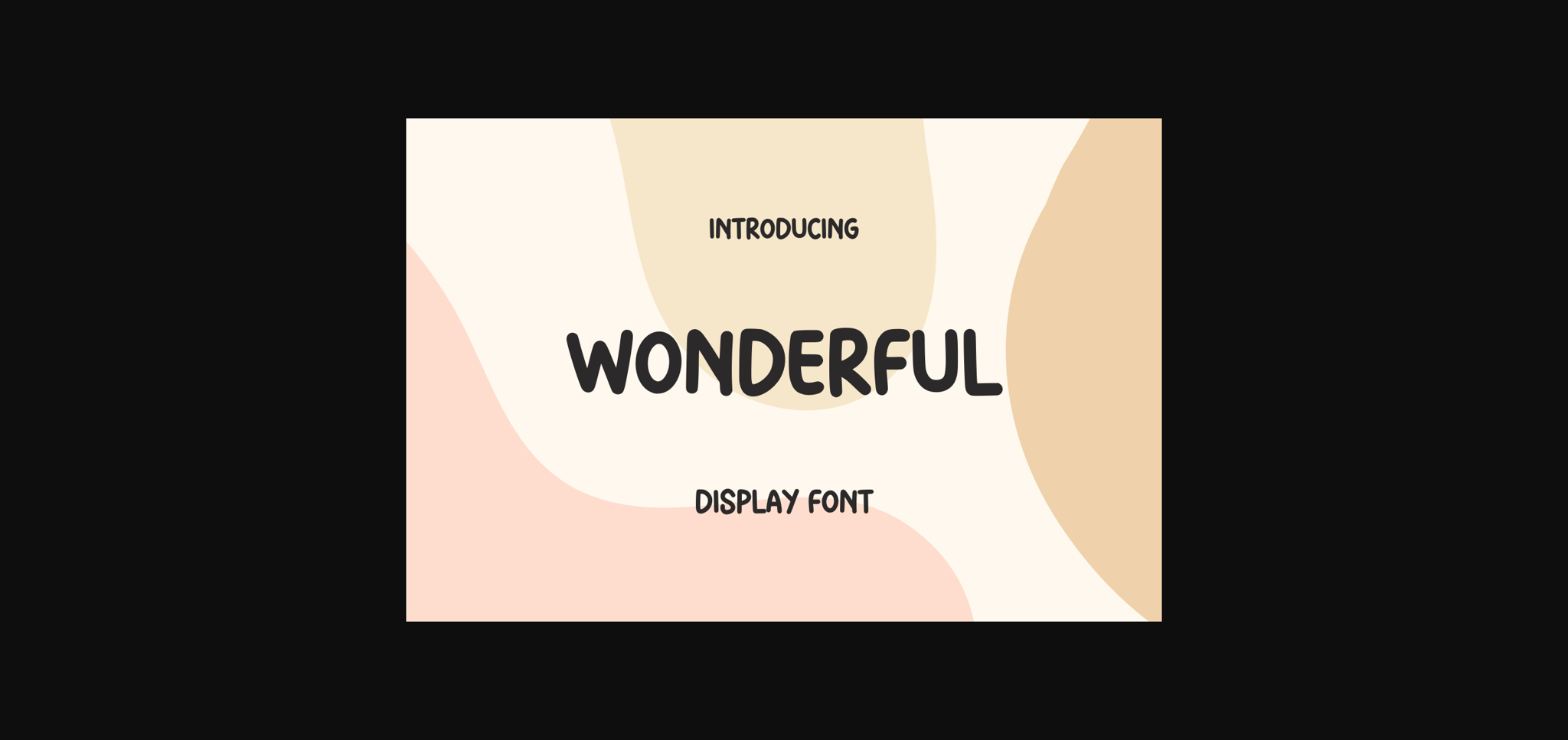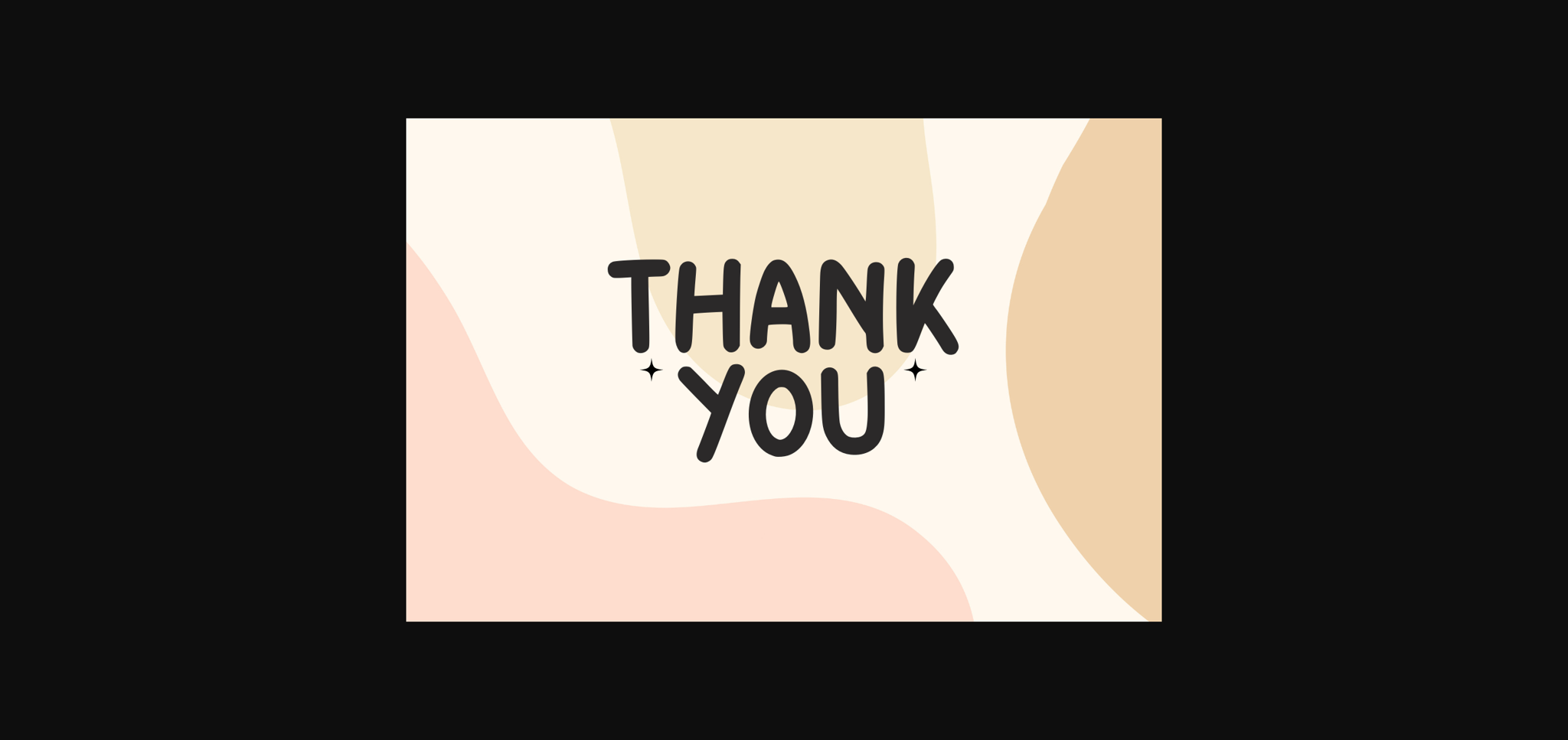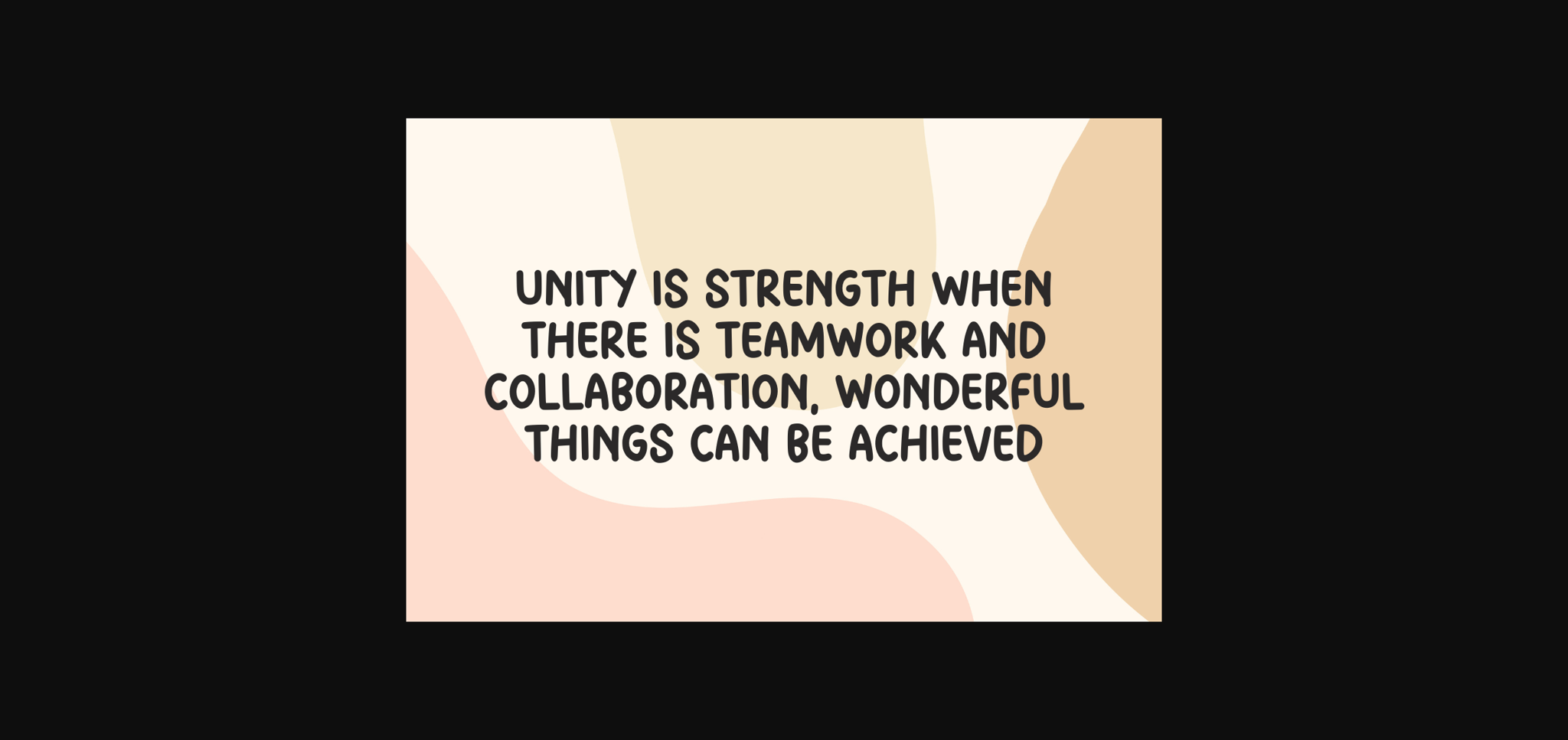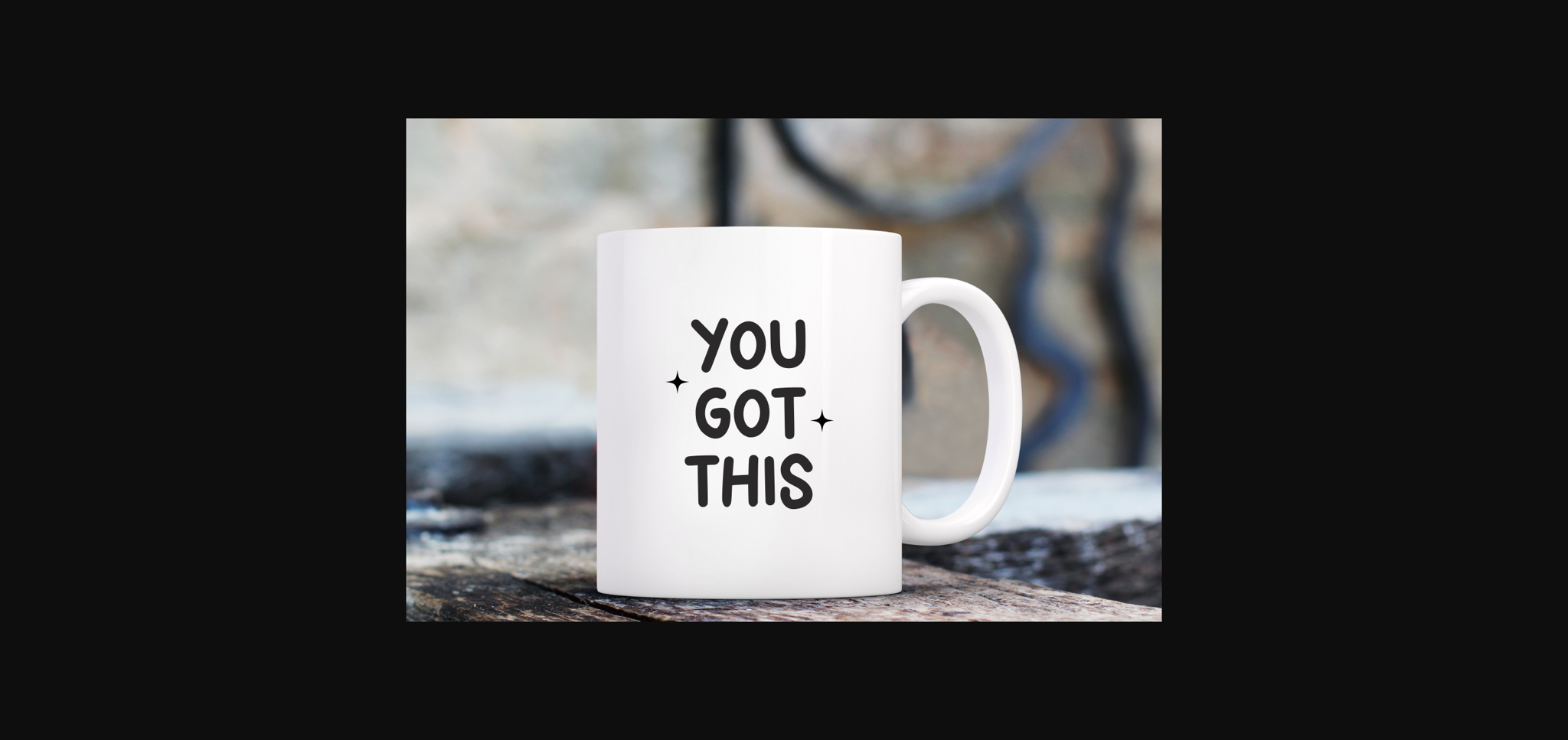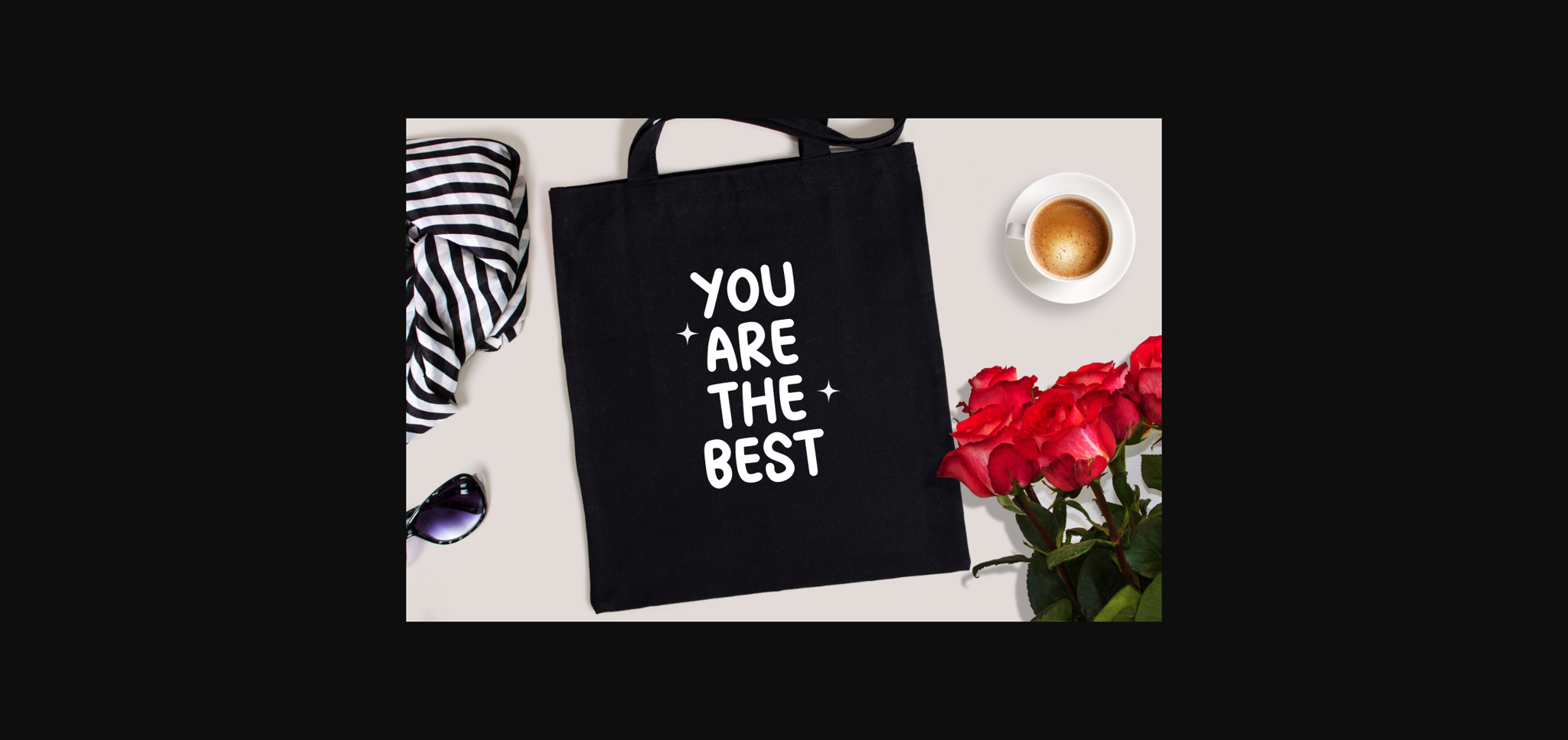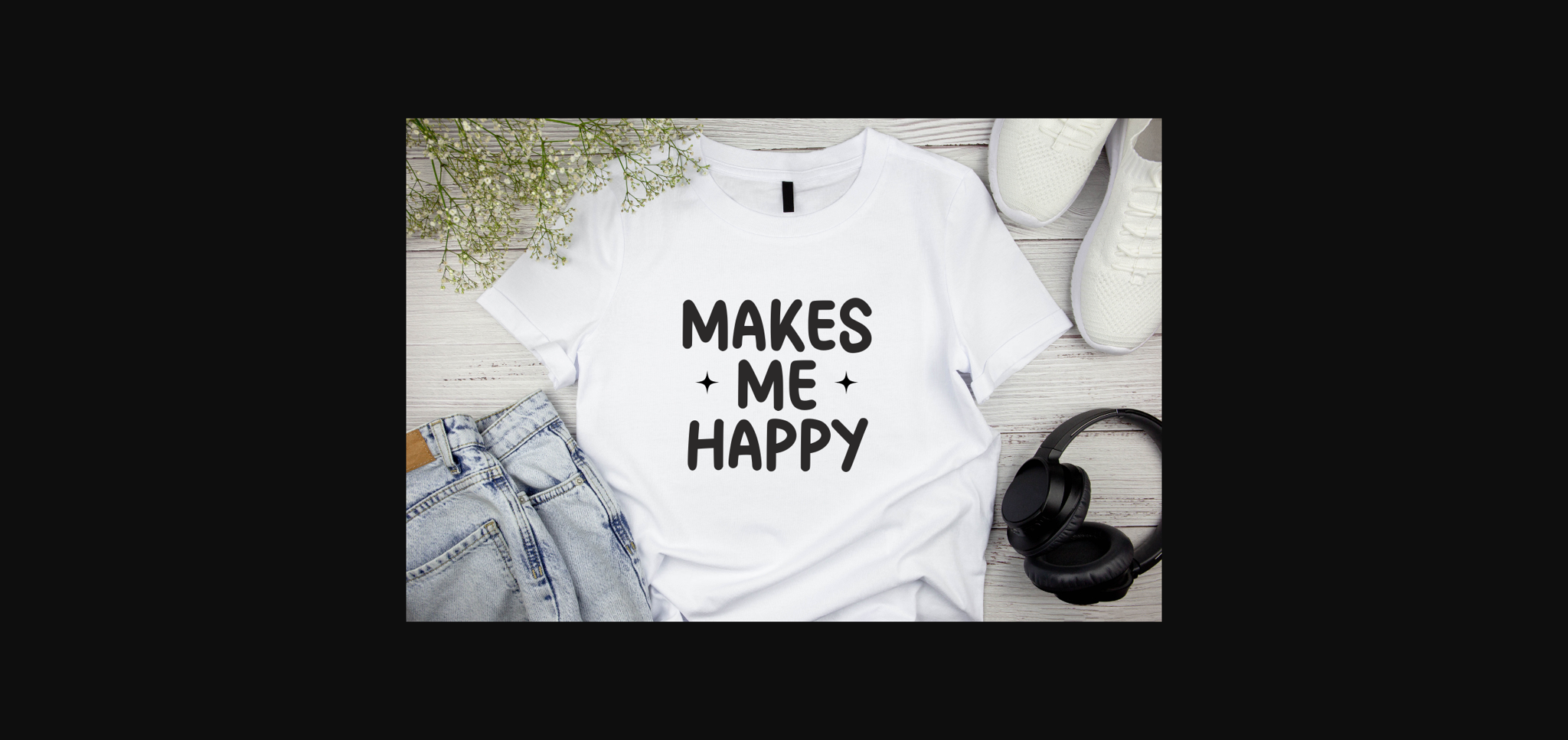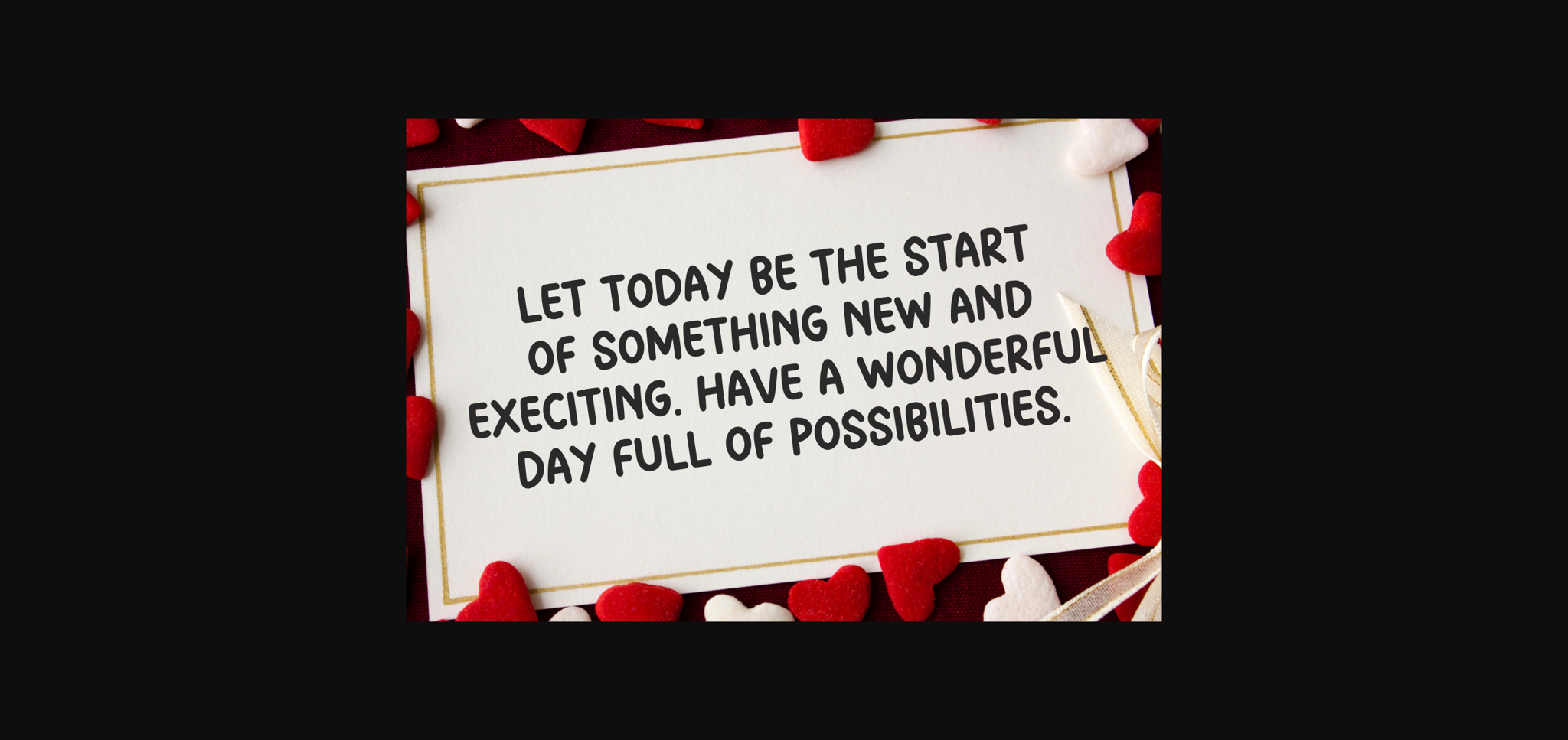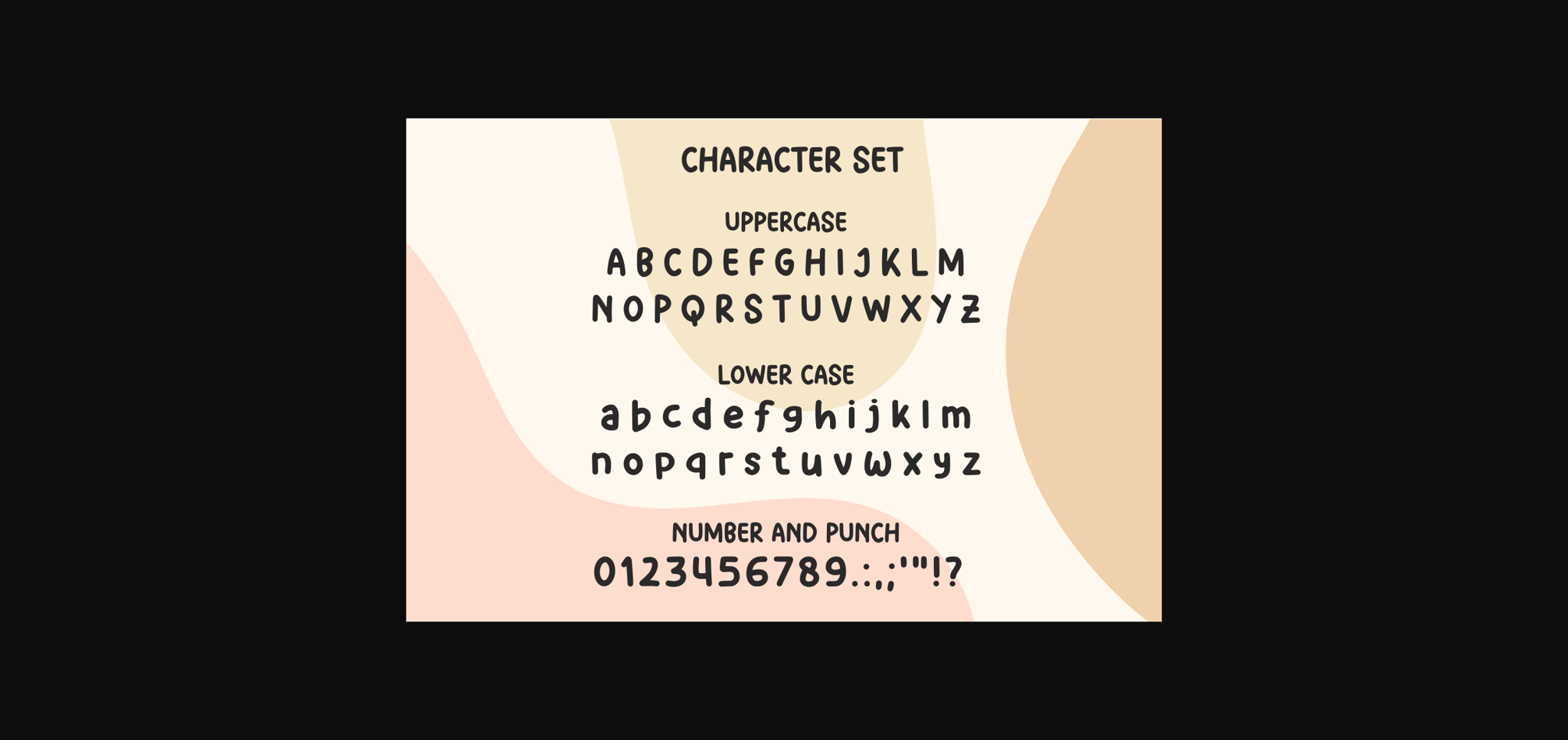
HomeSans Serif FontsWonderful Font Sans Serif Fonts Wonderful Font FacebookXPinterestWhatsApp 1 of 10 ... Wonderful Font Poster 2... Wonderful Font Poster 3... Wonderful Font Poster 4... Wonderful Font Poster 5... Wonderful Font Poster 6... Wonderful Font Poster 7... Wonderful Font Poster 8... Wonderful Font Poster 9... Wonderful Font Poster 10... About Wonderful Font Wonderful is a cute and playful sans-serif font. Whatever the topic, this font is perfect for your creative craft needs! DOWNLOAD NOW People also explored Brilliant Thought Font Paperboard Vertical Mockup Creepy Halloween Monogram Font Bogart Font Thor Matter Font Old Vic Beloved Daughter Font Flower Child Font Flower Mom Font 259 0 TagsWonderful Font Previous articleHappiest Sunrise FontNext articleLove Sunshine Font LEAVE A REPLY Cancel reply Comment: Please enter your comment! Name:* Please enter your name here Email:* You have entered an incorrect email address! Please enter your email address here Website: Save my name, email, and website in this browser for the next time I comment. Personal Use Free Americana Personal Use Free Read more about this font Sushi Stroke Personal Use Free Read more about this font Krait Personal Use Free Read more about this font Rise of Kingdom Personal Use Free Read more about this font BLOG How to Install and Use Fonts on Windows, macOS, and Web Projects How to Install and Use Fonts on Windows, macOS, and Web Projects Fonts are a crucial part of design and branding. Whether you’re designing a... How to Cut Any Font on Cricut: Convert a Font to SVG (Free) Transform Your Website: Elevate Your Typography with 7 Best Web Font Generators Best Fonts for T-Shirt Design – Top 2025 Picks